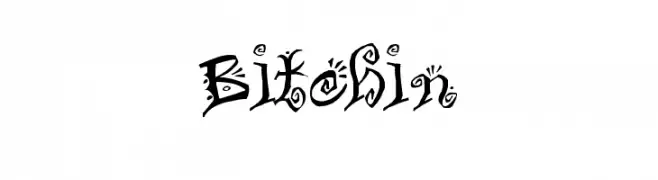
( Fonts by SnailFonts )
A playful and whimsical font with rounded, consistent strokes and unique character details.
( Fonts by or from www.graffitifonts.net )
A bold, playful handwritten font with smooth, rounded strokes.
( Fonts by Dieter Schumacher )
A bold, medieval-inspired font with sharp, angular strokes and historical elegance.
( Fonts by Peter Stanton )
A whimsical and decorative font with playful embellishments and high contrast strokes.
( Fonts by or from www.graffitifonts.net )
A whimsical, hand-drawn font with irregular strokes and a playful style.
( Fonts by Paul Reid - tracertong.co.uk )
A distressed, grungy font with jagged edges and uneven strokes, perfect for bold, alternative designs.
( Fonts by Graham Meade - GemFonts )
A modern, geometric font with rounded edges and bold, uniform strokes.